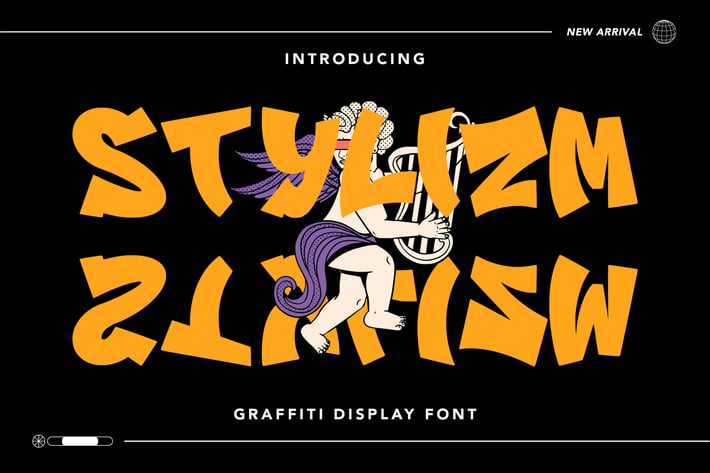
Stylizm - Graffiti Display Font
Stylizm - Graffiti Display Font contains a lowercase, uppercase, symbol, and also supports multi-language. There’s a lot of ligature in this font. Stylizm - Graffiti Display Font also comes with ligatures, stylistic alternates and many more.
this font suitable for fashion, branding, catalog and other design that you want.